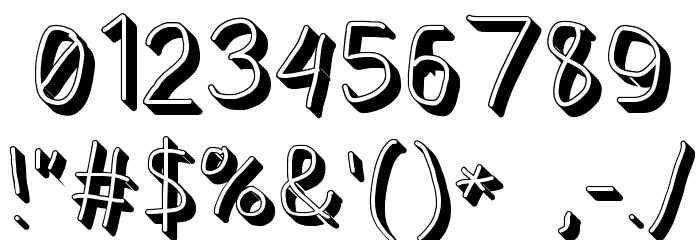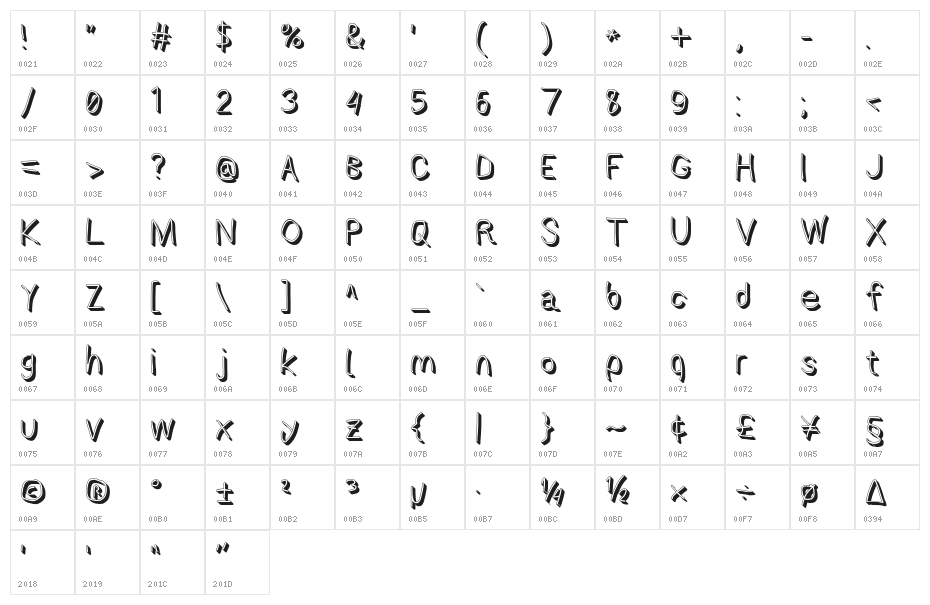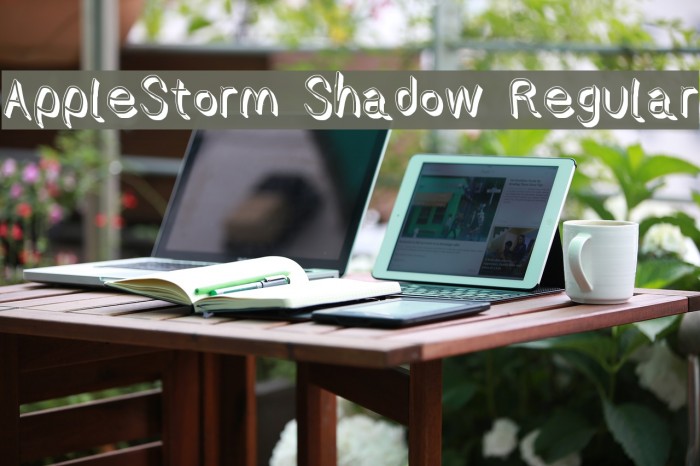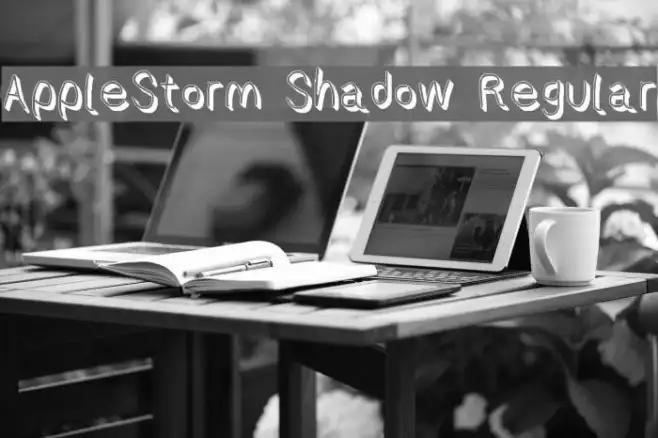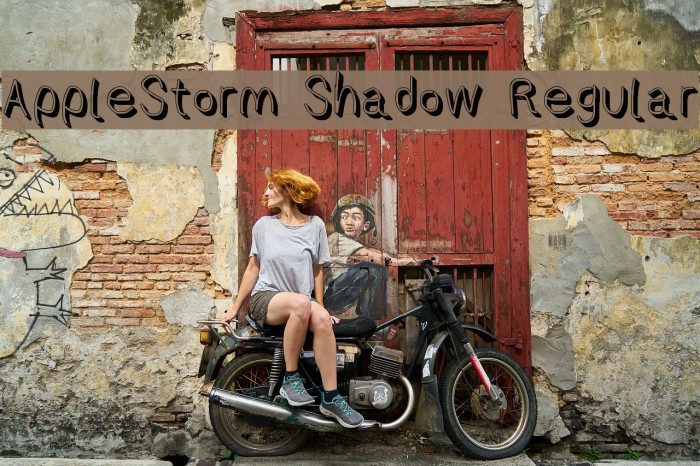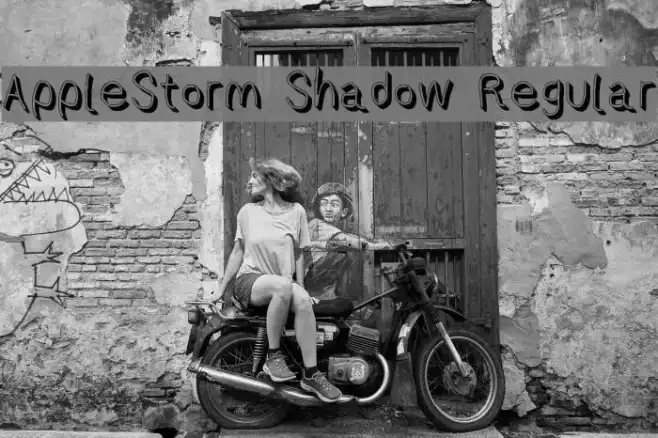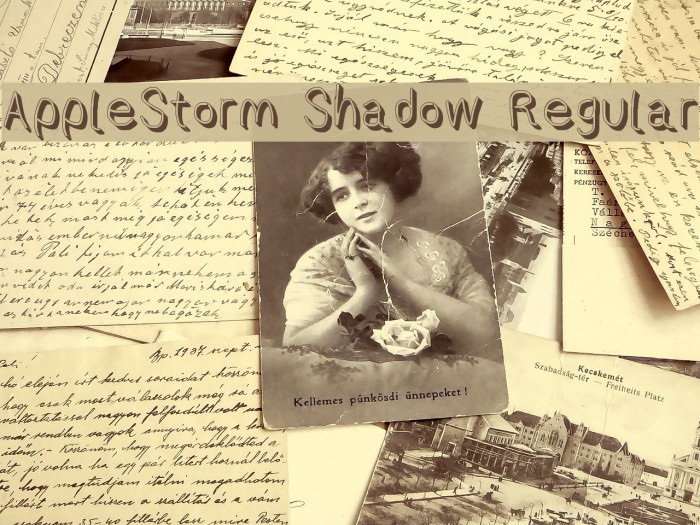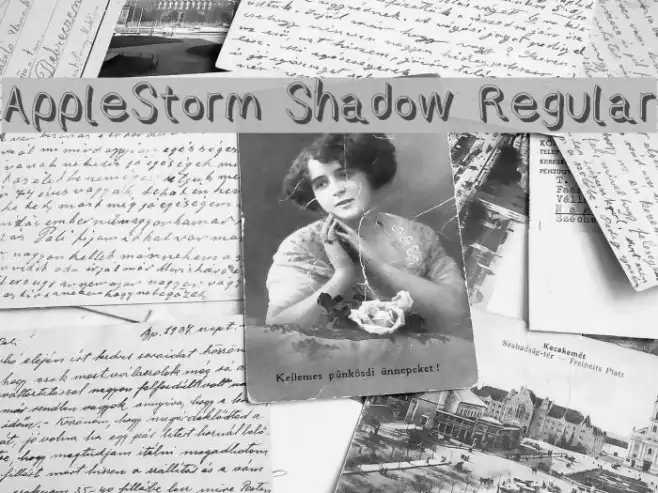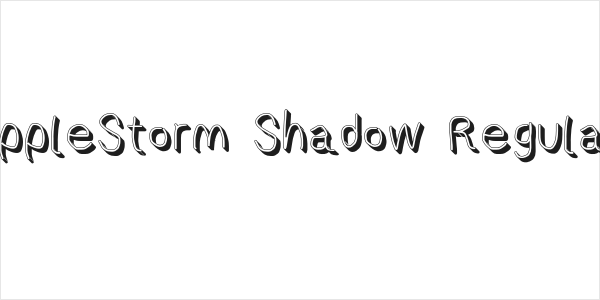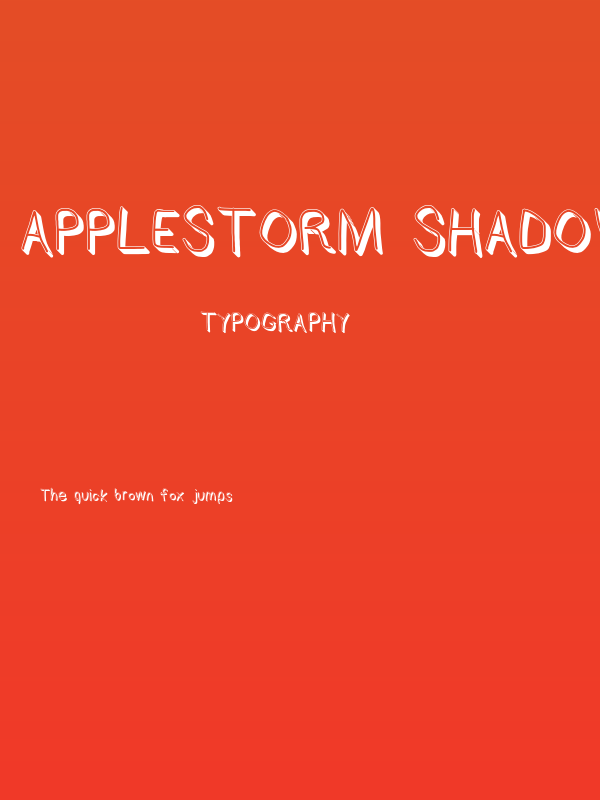
AppleStorm Shadow Regular Font
AppleStorm Shadow Regular Description
This font features a bold and playful design with a shadow effect that gives it a three-dimensional appearance. The letters are uppercase and lowercase with a consistent, rounded style that adds a sense of fun and creativity. The numbers and special characters maintain the same playful aesthetic, making the font versatile for various uses. The shadow effect is prominent, adding depth and a unique visual interest to the text. This font is suitable for projects that require a lively and engaging typeface.
| Overall Style | Playful, Creative |
| Proposed Projects | Ideal for children's books, comic strips, playful branding, and creative posters. |